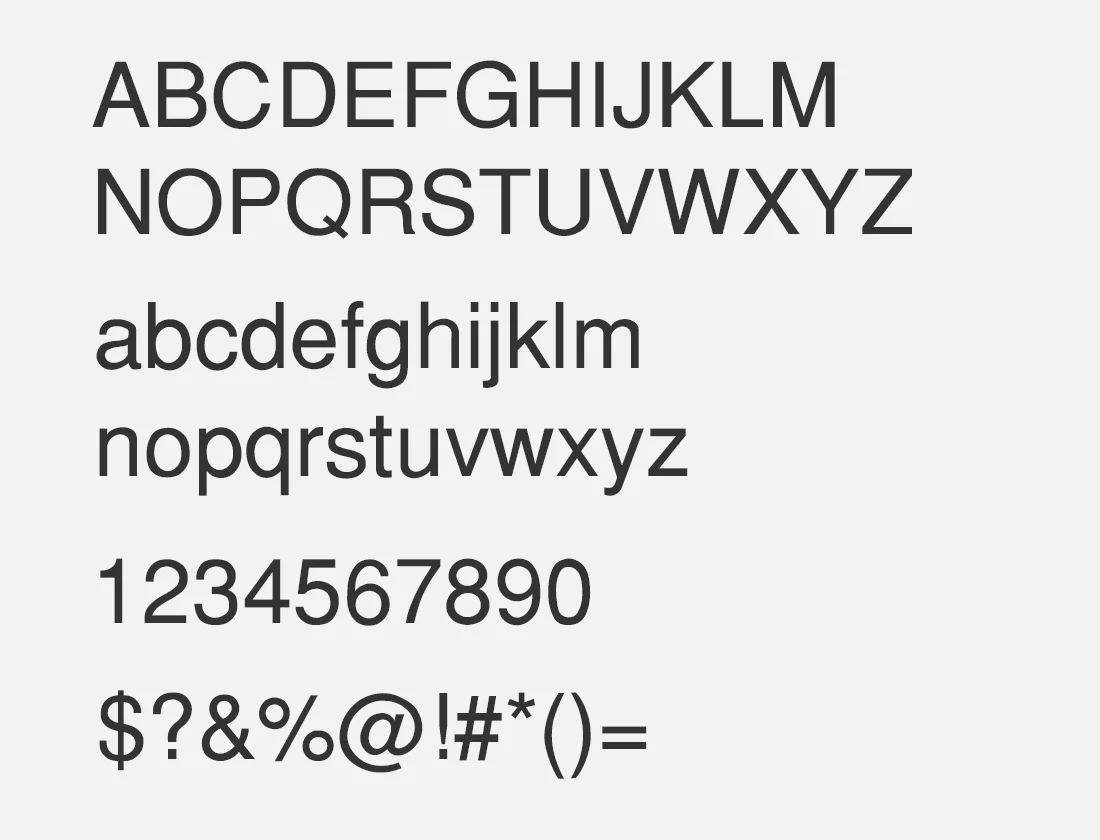
Helvetica Sans Font
Designed by Max Miedinger with Eduard Hoffmann
Helvetica Font is one of the most recognizable and widely used typefaces in the world. Designed with simplicity, clarity, and neutrality in mind, it has stood the test of time across print, web, and branding. Whether you’re designing sleek corporate material or aiming for minimalist elegance, Helvetica delivers with effortless grace.
• Designer: Max Miedinger with Eduard Hoffmann
• Original Release: 1957
• Latest Update: Helvetica Now by Monotype (2019)
• Style: Neo-grotesque sans-serif
Originally developed in Switzerland as Neue Haas Grotesk, Helvetica was later renamed and refined for global use. The Helvetica Now series reimagines the entire family for modern typography, from microscopic UI text to bold headlines.
Helvetica’s design philosophy is grounded in visual clarity and balance. Key features include:
• Clean, geometric structure with tight spacing
• Excellent legibility at both large and small sizes
• Three optical sizes in Helvetica Now: Micro, Text, and Display
• Smooth curves and subtle stroke variation for a timeless look
• An extensive set of alternates (e.g., single-storey 'a', hooked 'l', and rounded 'G')
• Full support for Western, Central, and Eastern European languages
Helvetica Now goes even further by improving legibility in digital and low-resolution environments, especially with its Micro version.
Helvetica is incredibly versatile. From tech startups to luxury brands, it's everywhere for a reason.
Ideal For:
• Branding & logos
• User interfaces
• Editorial layouts
• Presentations & business documents